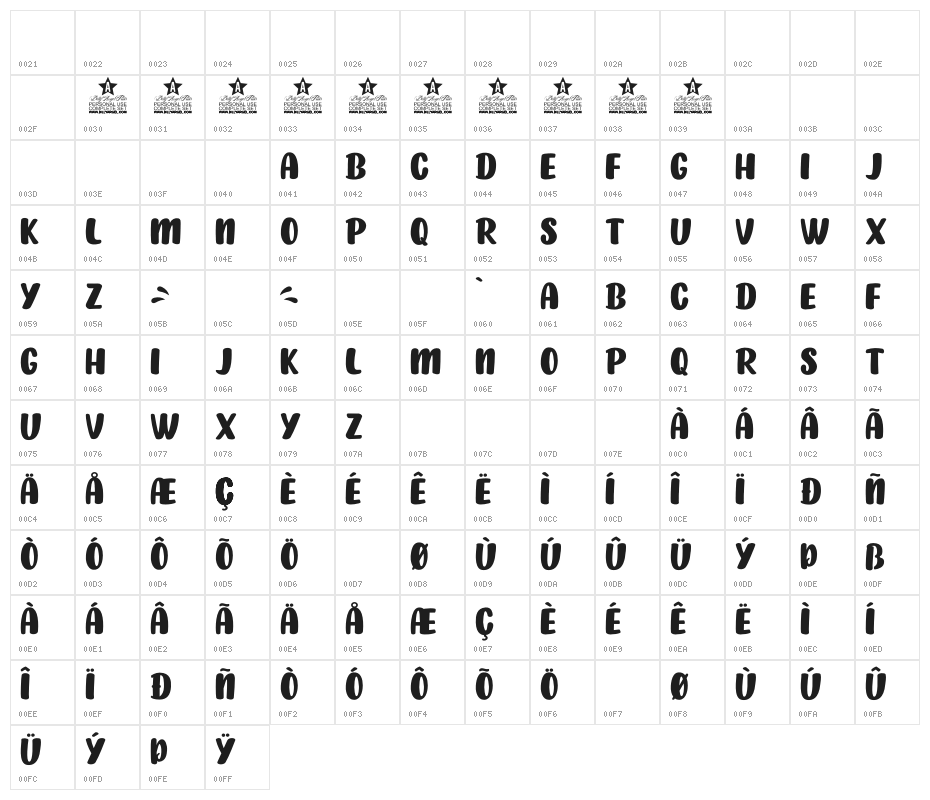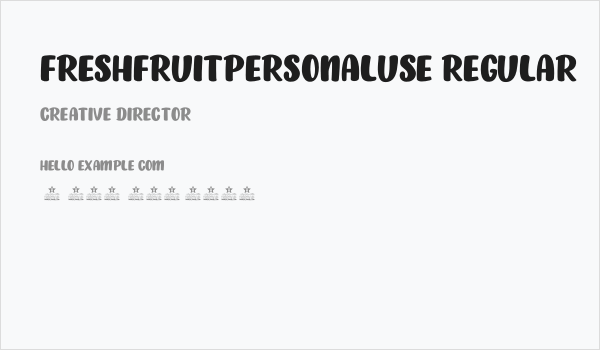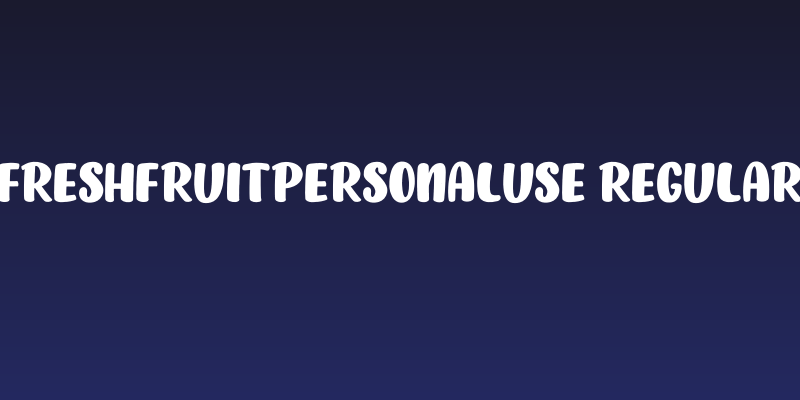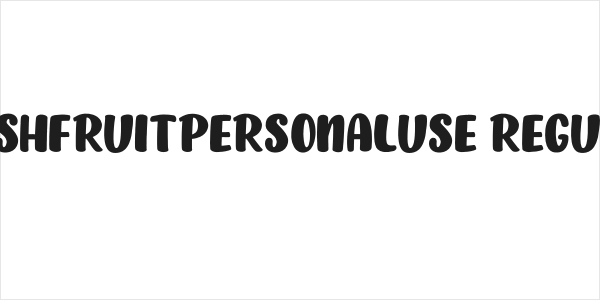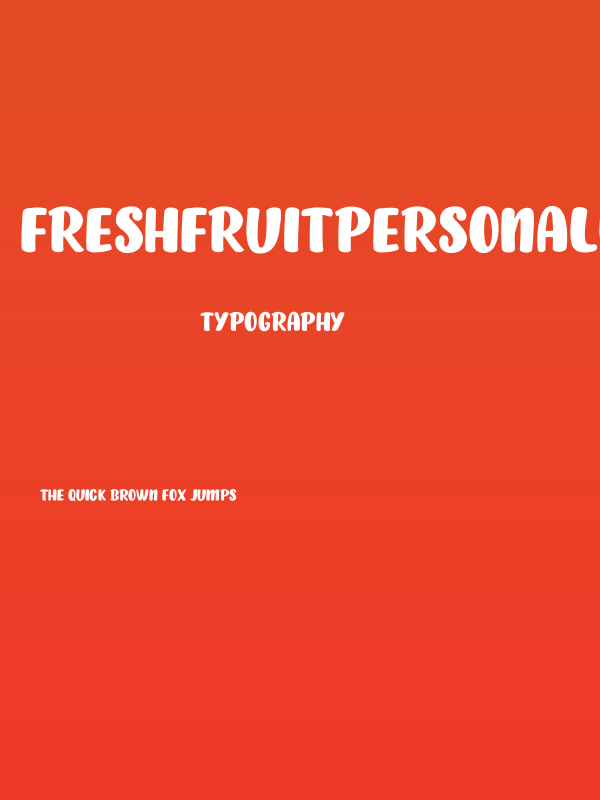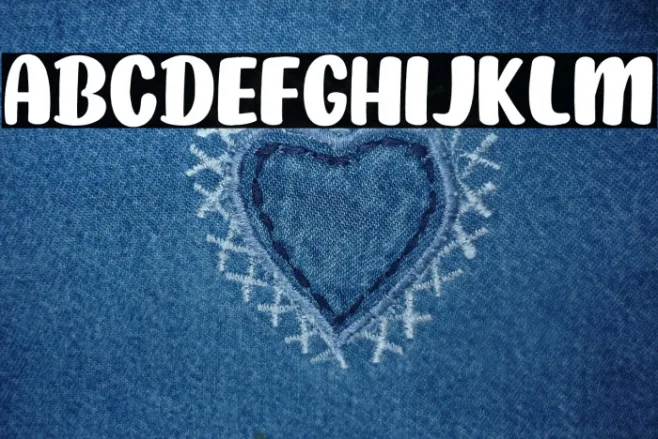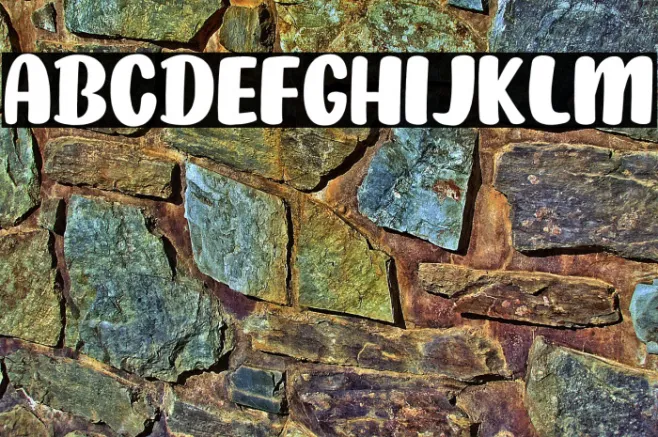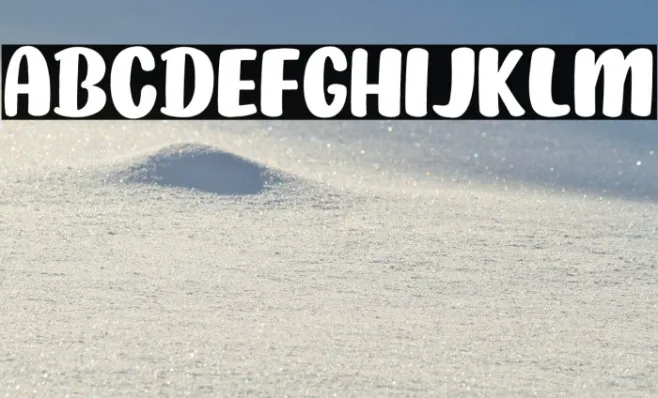
FRESHFRUITPERSONALUSE-Regular Font
FRESHFRUITPERSONALUSE-Regular Description
This font features a bold and playful style, characterized by thick, rounded letterforms that convey a sense of fun and approachability. The uppercase and lowercase letters maintain a consistent weight, creating a harmonious and balanced appearance. The strokes are smooth and fluid, with a slight slant that adds a dynamic feel. The overall design is modern and eye-catching, making it suitable for a variety of creative projects. The font's unique personality is enhanced by its wide character spacing, which ensures readability while maintaining its distinctive look.
| Font Family | FRESH FRUIT PERSONAL USE |
| Overall Style | Playful, Modern |
| Proposed Projects | Ideal for children's books, playful branding, posters, and social media graphics. |